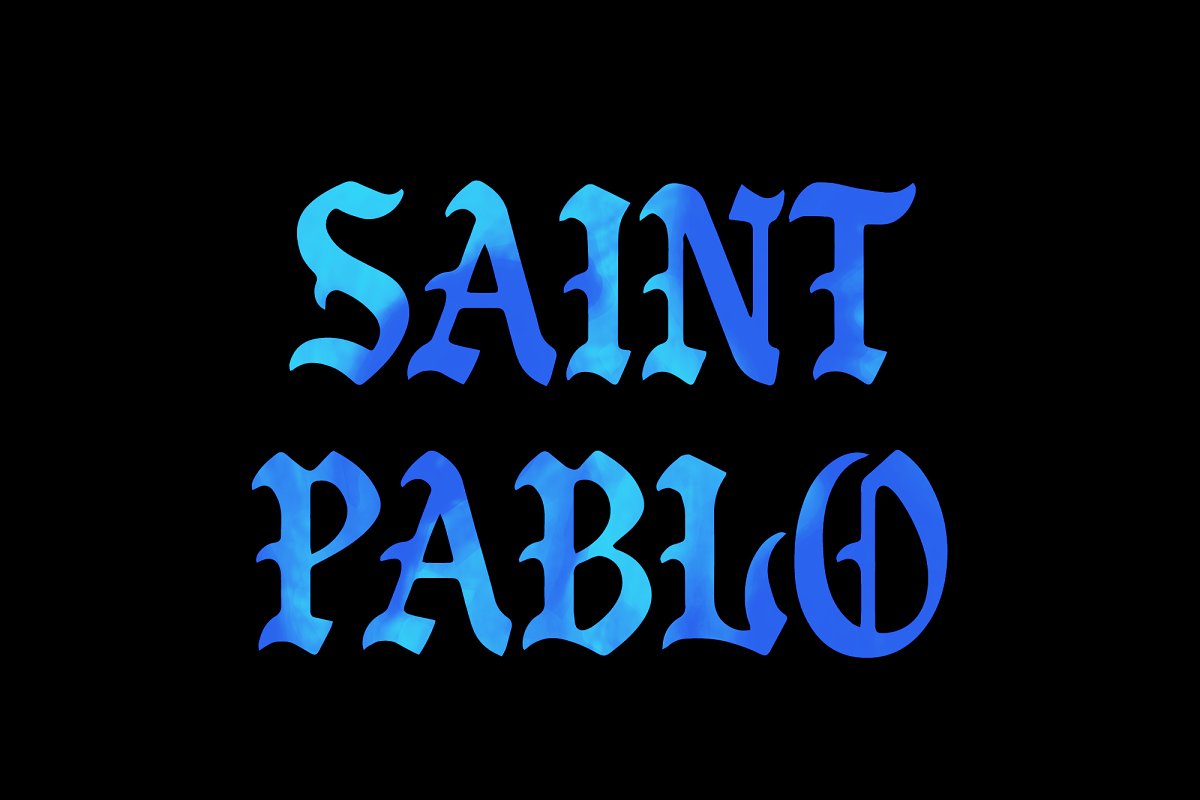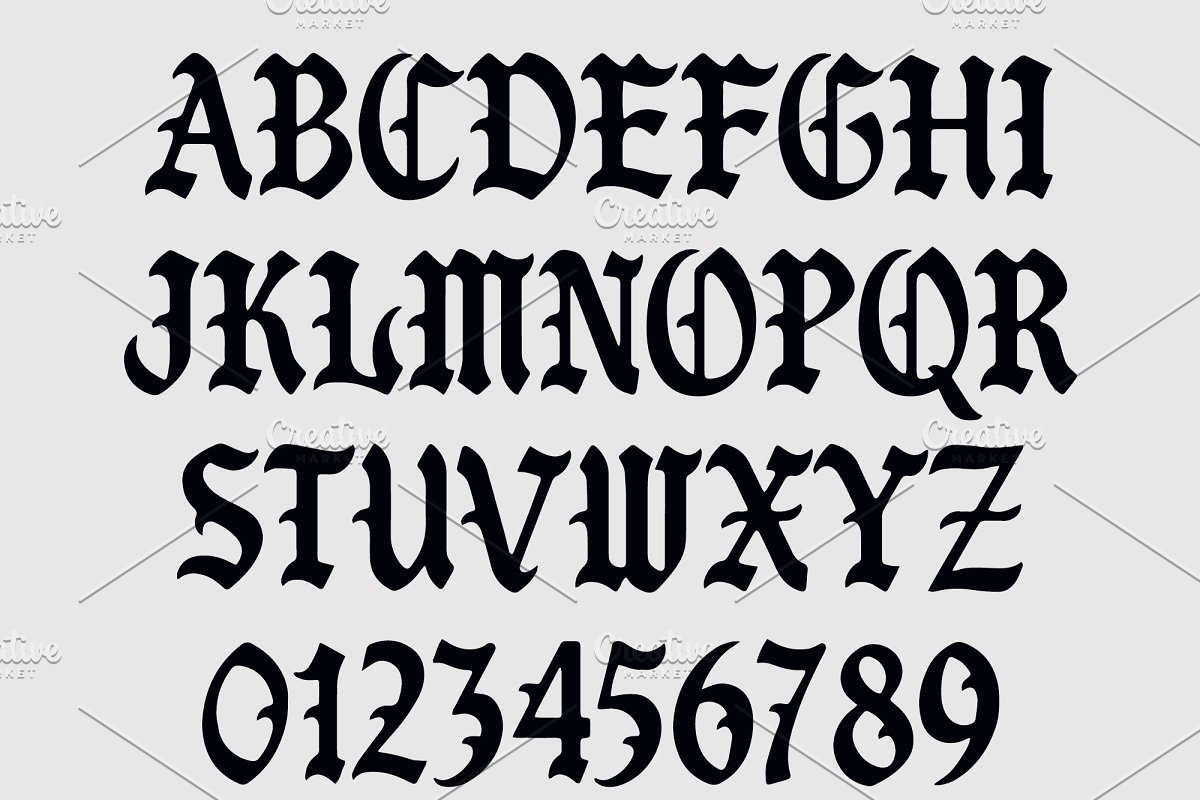
About the Saint Pablo Font
Basic Old English, Yeezy, Pablo, style font, Great for t-shirts, sweatpants, and other fashion designs, Also great for posters and print work,